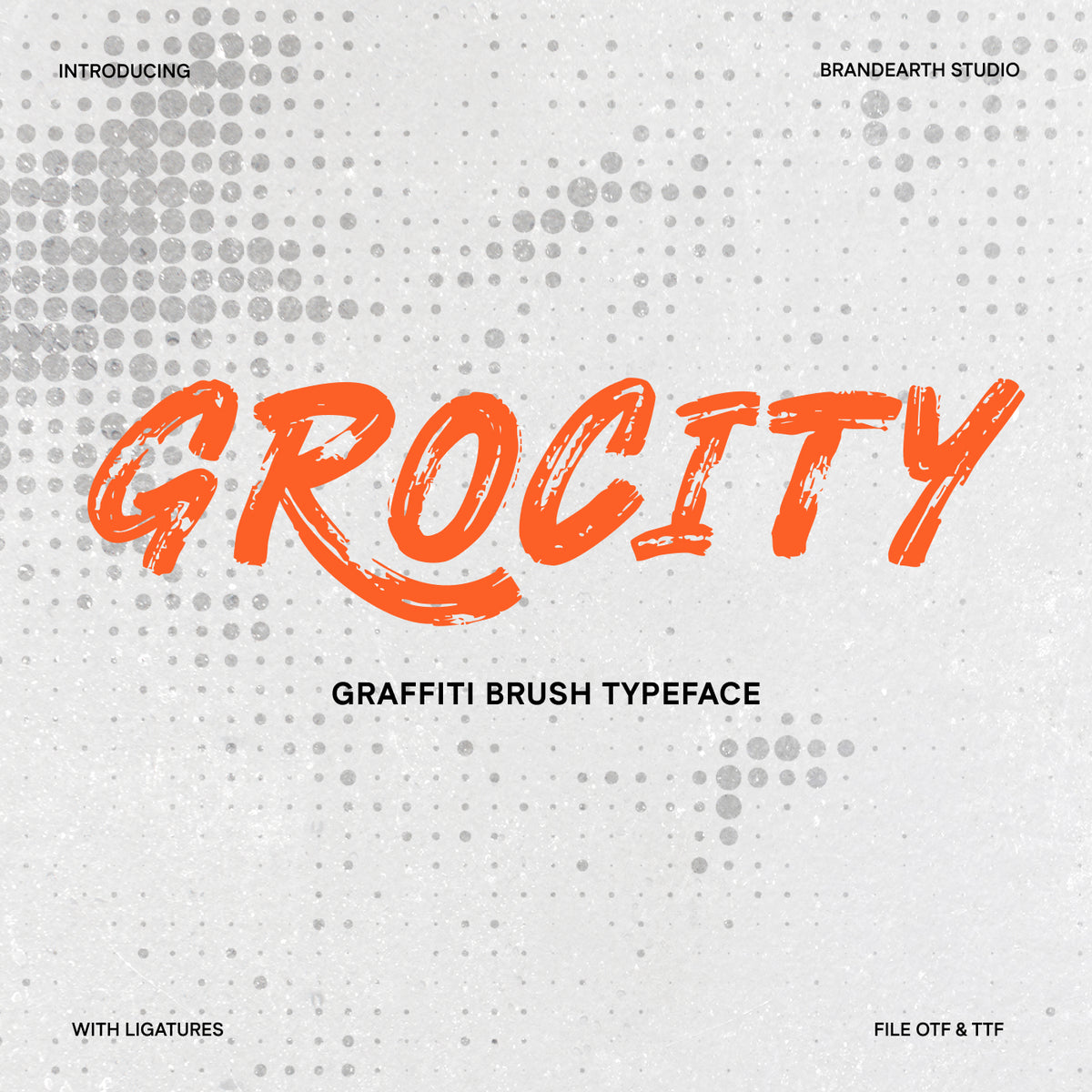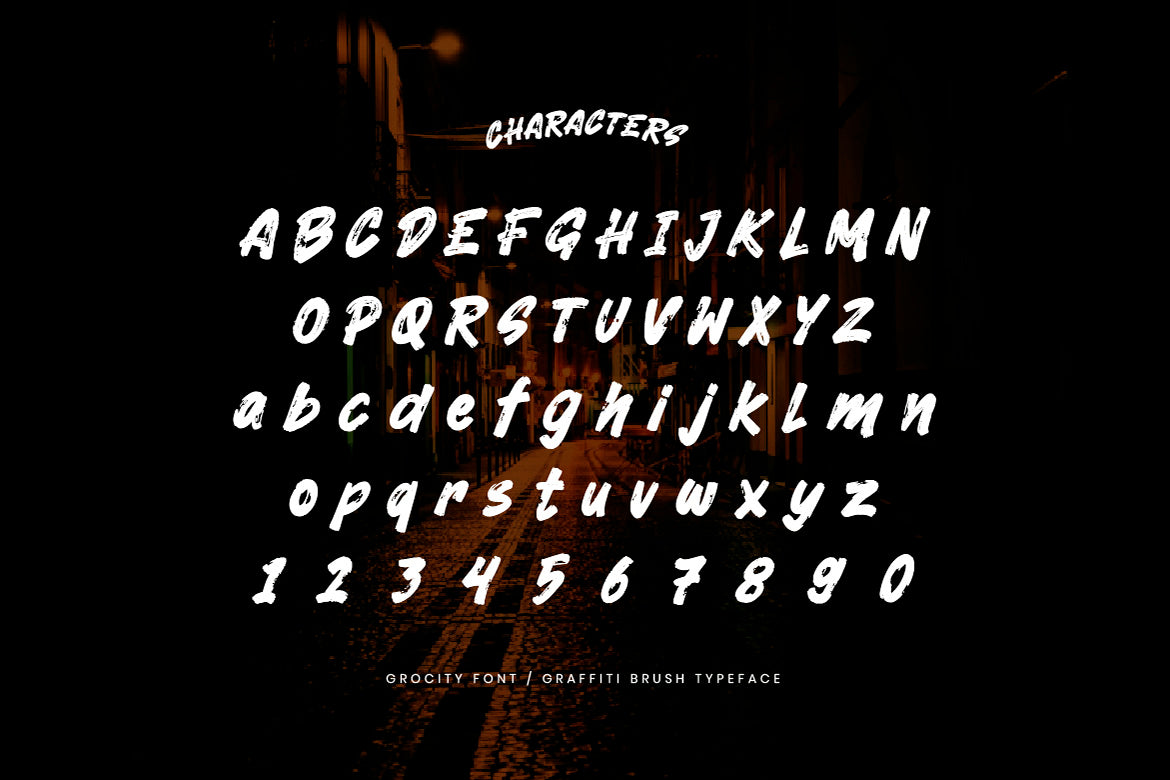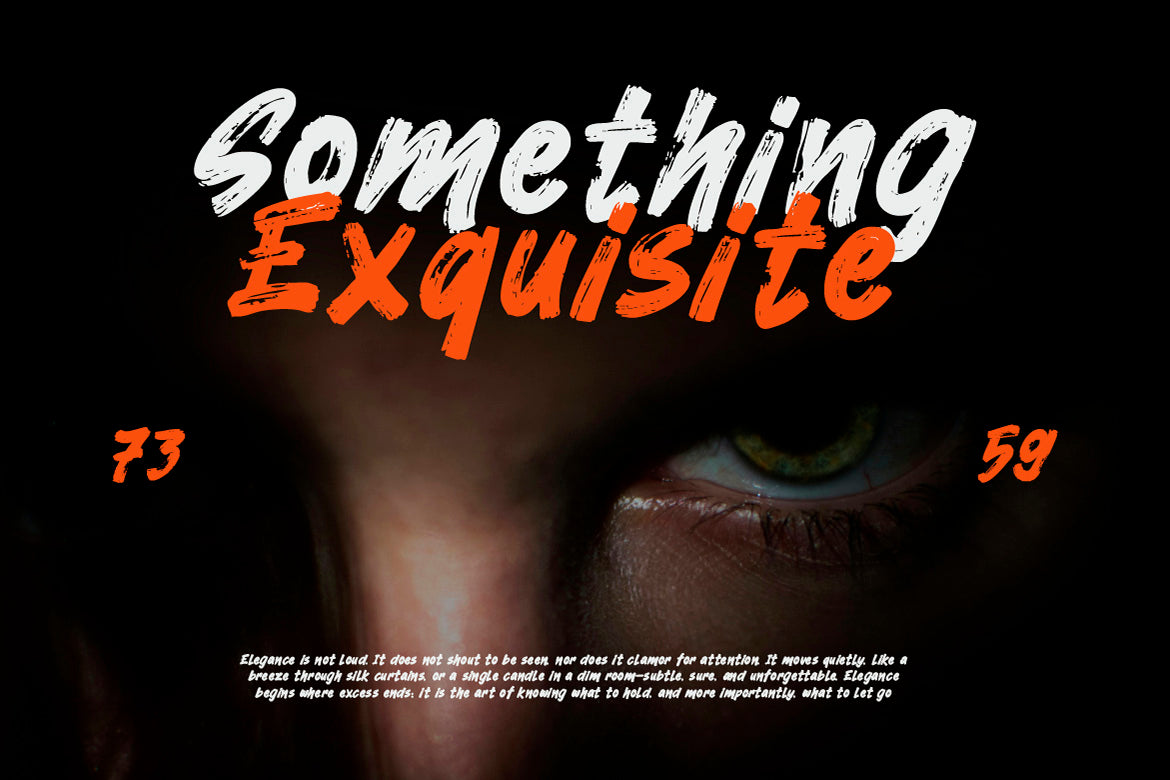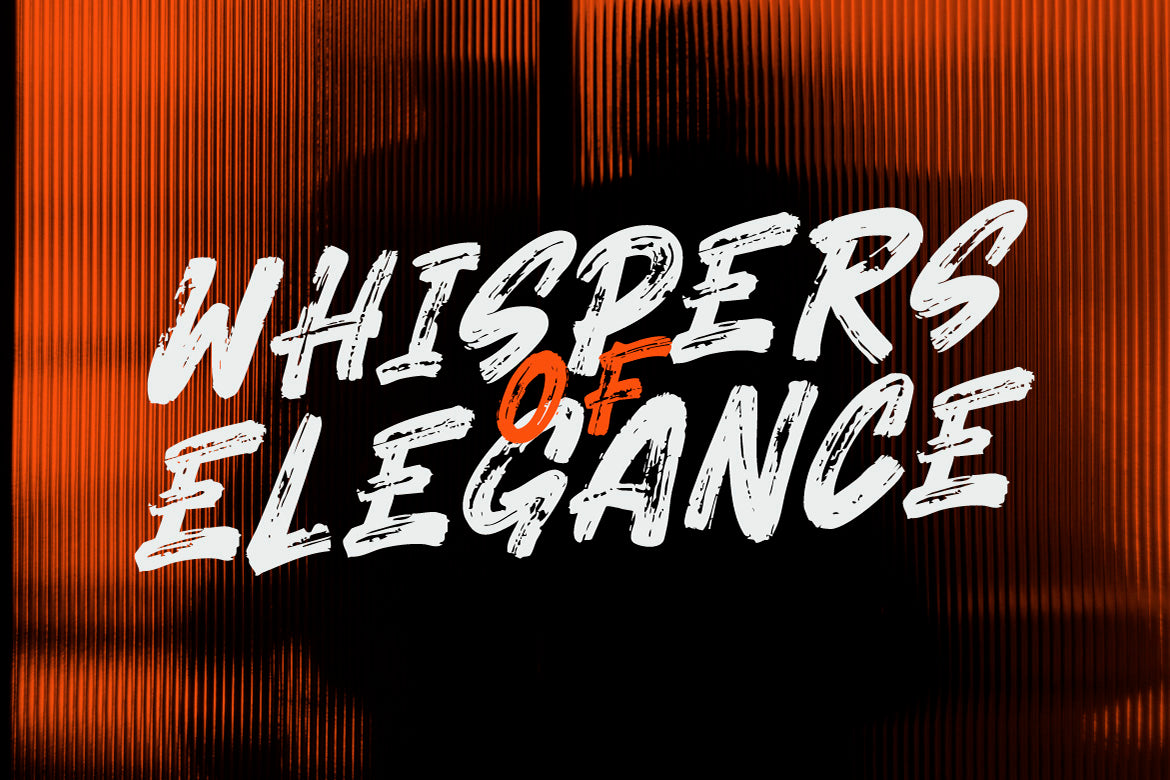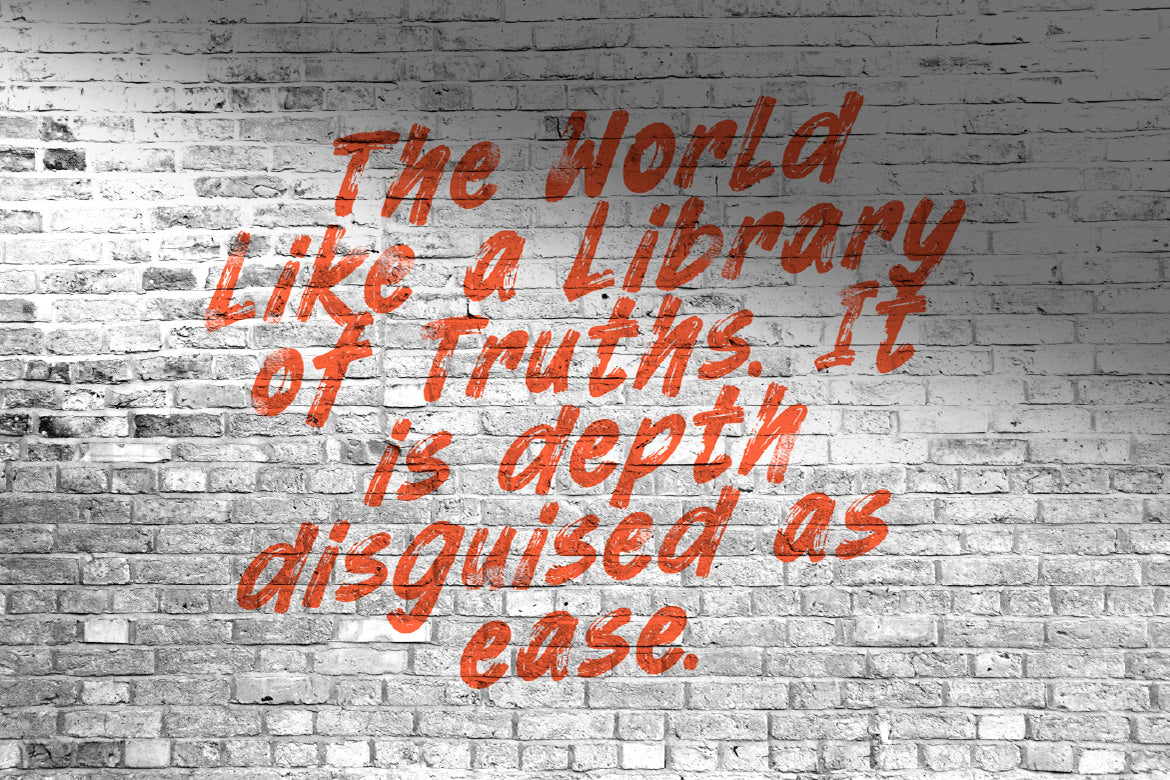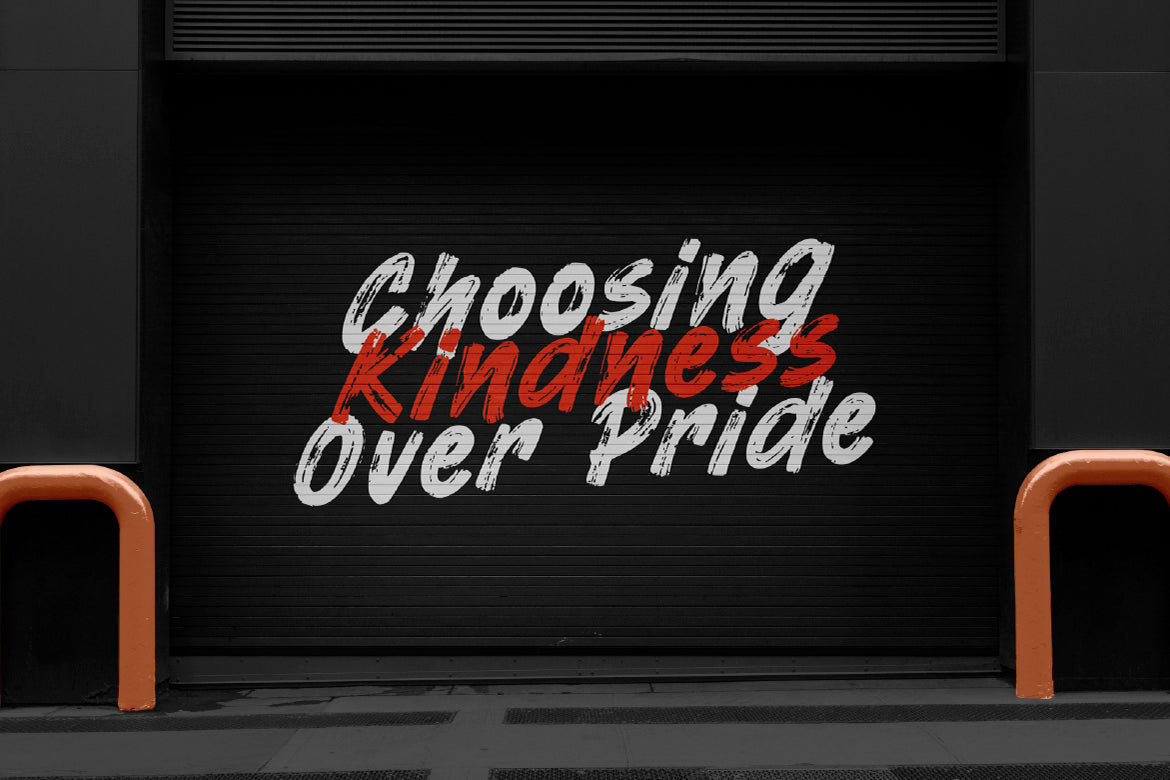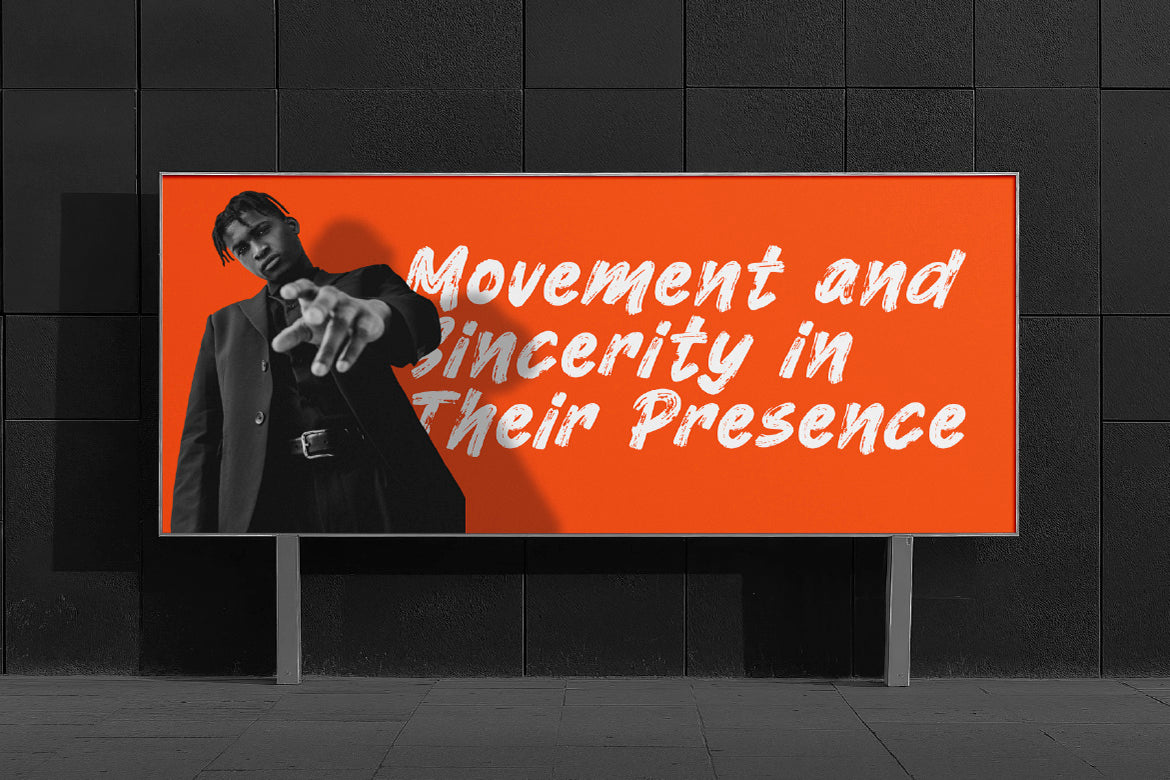
Grocity Graffiti Brush Typeface Font
Groovy is a bold graffiti brush typeface with expressive, hand-painted letterforms and a strong street-art character. Its shapes feature rough brush edges, uneven stroke widths, sharp directional cuts, and visible distressed details that create an authentic painted texture. The energetic construction gives each letter a dynamic, imperfect appearance, making the typeface especially effective when typography needs to feel raw, rebellious, and handmade. Designed primarily for display use, it works best at large sizes where the brush texture and distinctive letter shapes remain clearly visible.
Groovy is made for bold visual projects where typography needs to carry an expressive street-inspired attitude. Use it for music posters, album artwork, streetwear graphics, skate designs, event flyers, graffiti artwork, merchandise, stickers, and alternative branding. Its rough brush texture also works well for social media graphics and campaign headlines when a clean digital typeface would feel too polished.
Grocity Graffiti Brush Typeface Font is a bold display typeface featuring hand-painted letterforms with rough brush edges, uneven stroke widths, and distressed detailing. It includes uppercase and lowercase characters, numerals, and punctuation, available in TTF, OTF, and WOFF formats.